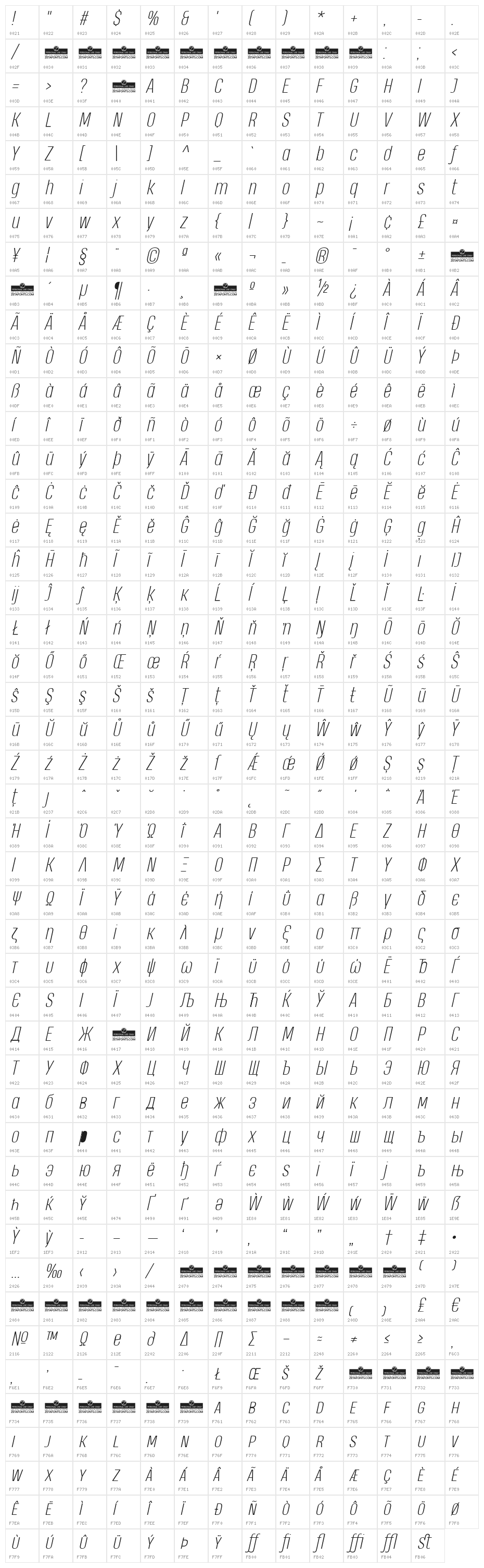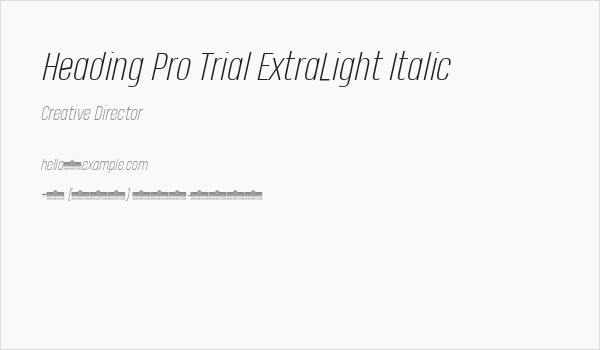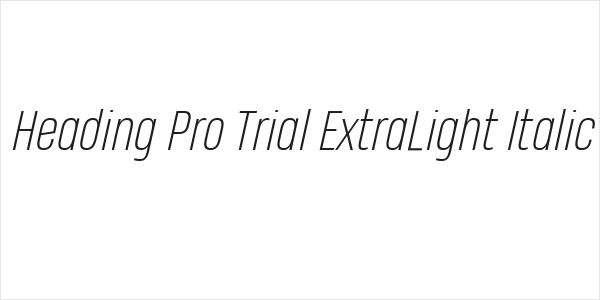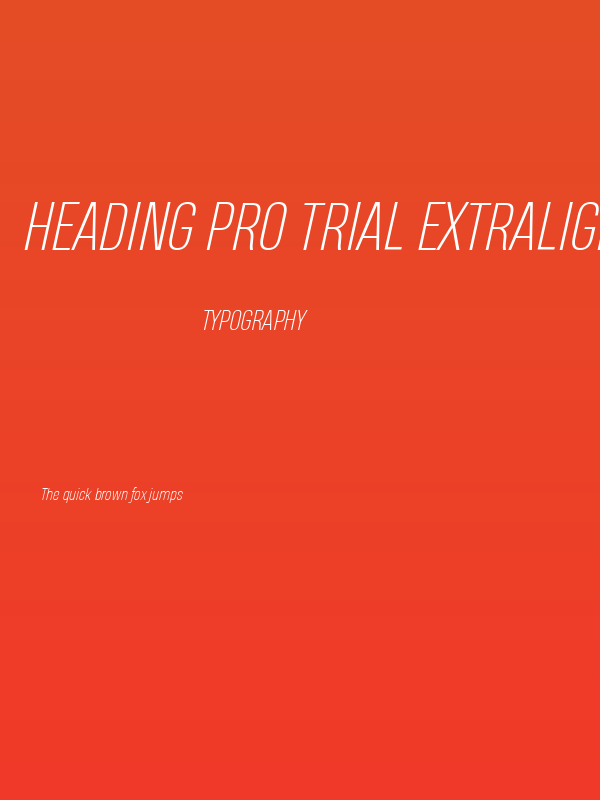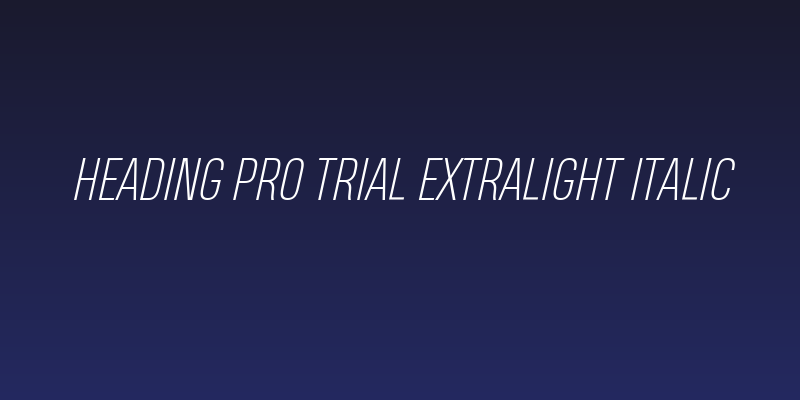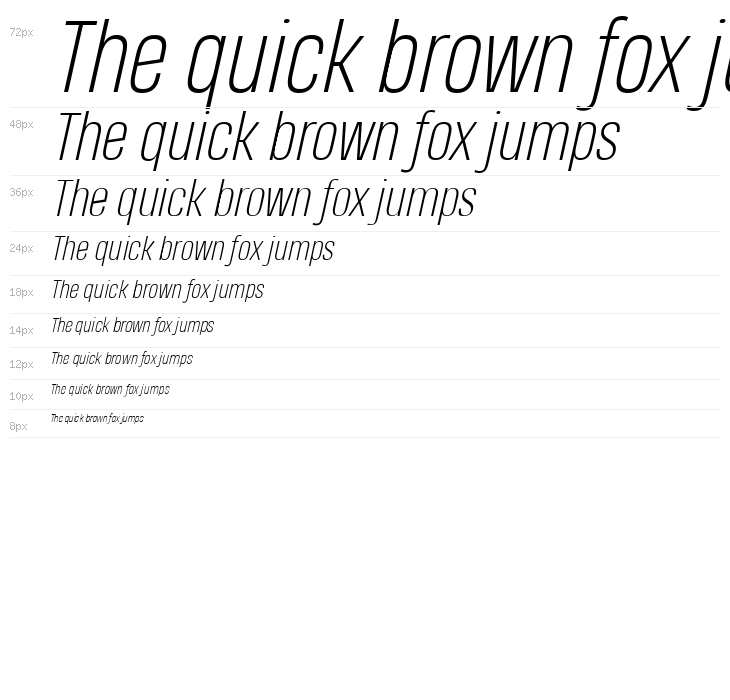
Heading Pro Trial ExtraLight Italic Font
Heading Pro Trial ExtraLight Italic Description
This font features a sleek and modern design with an extra light weight and italic style. The characters are elongated and slightly condensed, giving it a sophisticated and elegant appearance. The strokes are consistent and smooth, with a low contrast between thick and thin lines. This font maintains a clean and professional look, suitable for contemporary design projects. The spacing between characters is tight, enhancing its streamlined aesthetic. It includes a full set of uppercase and lowercase letters, numbers, and a variety of special characters, making it versatile for various applications.
| Use Case | Headlines, Logos, Editorial design |
| Proposed Projects | Ideal for fashion magazines, modern branding, elegant invitations, and minimalist web design. |